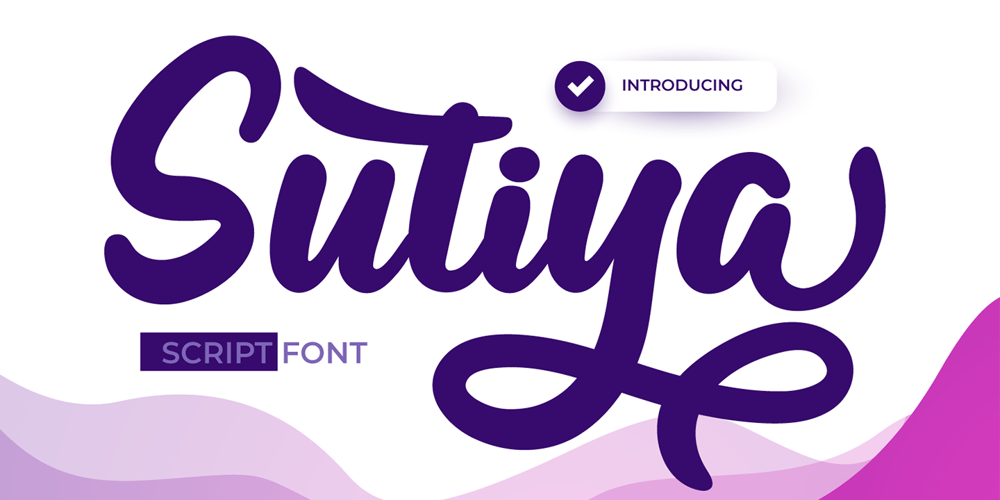
Sutiya Font Family was designed by Rozikan and published by Twinletter. Sutiya contains 1 styles and family package options. Introducing our newest font named SutiyaThis font is surnamed calligraphy script with cute and beautiful nuances, designed with beautiful curves for each letter, with opentype support you can change each character easily like magic. It also has a charming modern character, perfect for Halloween and Cristmast nuances.Of course, the beautiful and beautiful letterforms make this font look charming for you to use as a title, logo or anything else in your every design project.This charming font also offers the beauty of abstract typography harmony for a wide variety of design projects, including digital natural handwriting for designs, quote designs, for social media business designs, advertisements, trademarks, food and beverage promotion banners, text, posters, a signature, and all designs require handwriting or whatever design you want.This font is equipped with uppercase, lowercase, numbers, punctuation marks, swhases and several variations on each character including multi-language.==================================================This font is best suited for open type friendly applications. How to get alternative glyphs from open type fonts: http://adobe.ly/1m1fn4YPUA Character Code – Fully accessible without additional design software.do not hesitate anymore start using this font. and Feel free to send any message you want to convey.